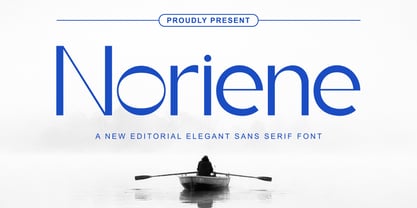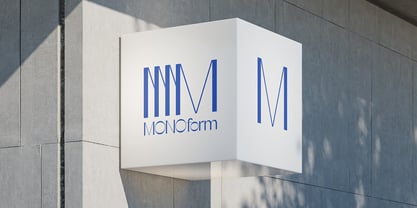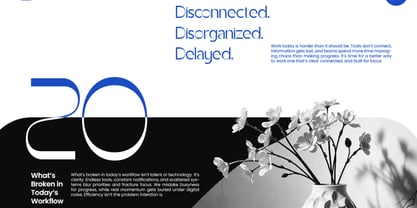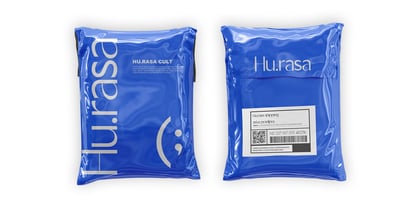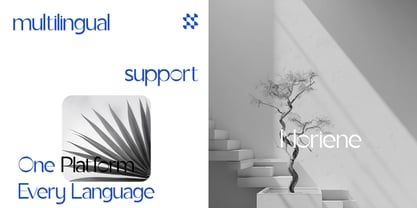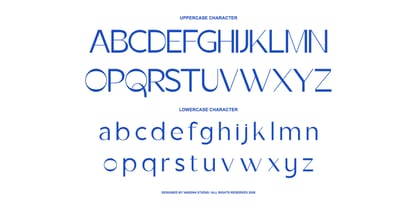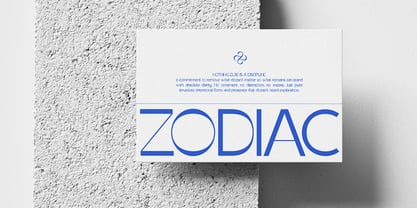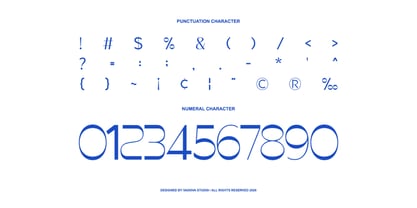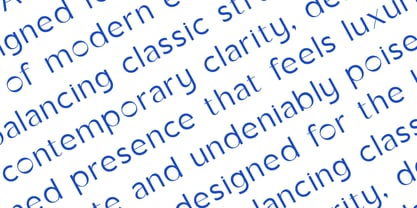
Noriene
by Rasio Studio
The Noriene Font Family was designed by Fajar Indra and published by Rasio Studio. Noriene contains 1 styles. More about this family
Noriene is a modern editorial sans serif font designed with refined proportions, graceful curves, and confident minimalism. Featuring clean geometric construction balanced with subtle humanist touches, Noriene delivers a sophisticated yet approachable tone. Noriene is highly suitable for editorial magazines, corporate branding, creative agencies, fashion campaigns, tech startups, premium product packaging, and professional marketing materials. Its clean yet expressive structure makes it ideal for logo design, website typography, presentation templates, social media graphics.
Designers: Fajar Indra
Foundry: Rasio Studio